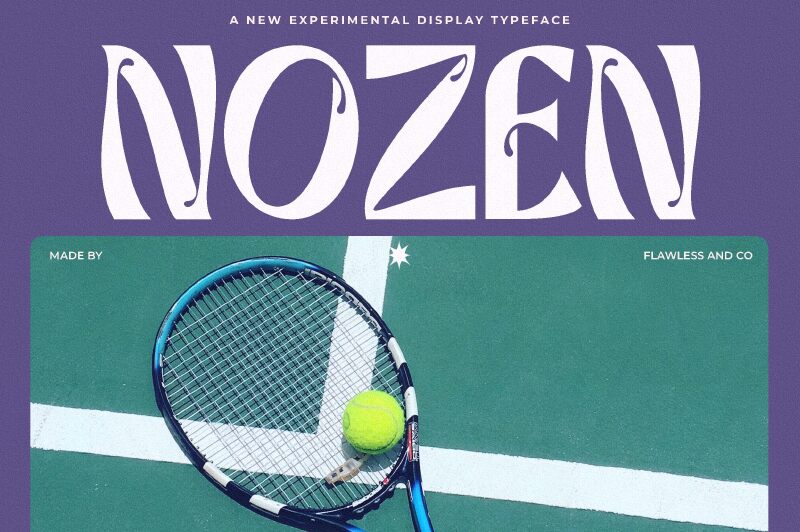
NOZEN Regular
Nozen font by Achmad Yani of Flawless and Co. is a fantastic calligraphy font that presents its elegance through every single letter and stroke. Its artistic attributes are mesmerizing, with each character having a simple yet decorative personality that matches the others. Visualize your next print or digital design with Nozen.
With this free calligraphy font, give meaning to book covers, pages, headings, posters, branding projects for restaurants or boutiques logos. The fonts can also decorate beauty products’ packages like natural oils, skincare creams, shampoo bottles and soap packaging paper.